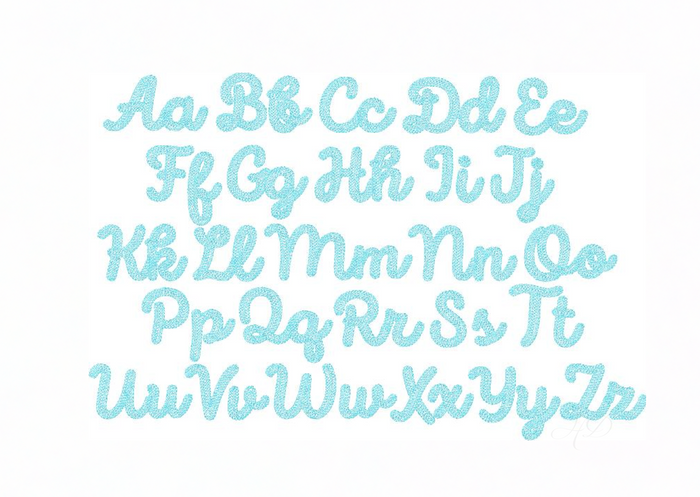
Beatrice Bold Chain Fill Embroidery Font Package
Unleash your creativity with the Beatrice Bold Chain Fill Embroidery Font Package. This versatile font is designed for crafters and DIY enthusiasts, featuring both uppercase and lowercase letters adorned with a chic redwork outline and a delightful chain stitch fill. With a complete set of 52 unique letters, the possibilities for personalized designs are endless!